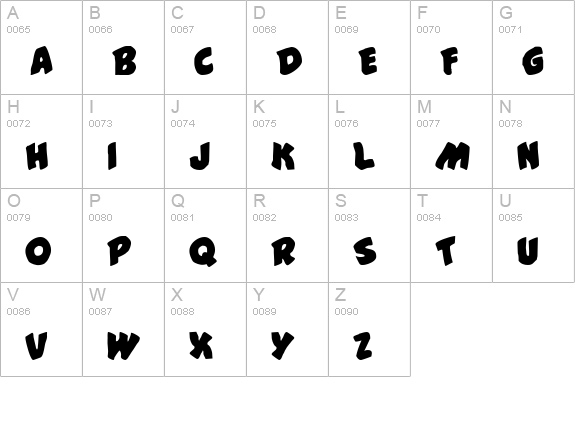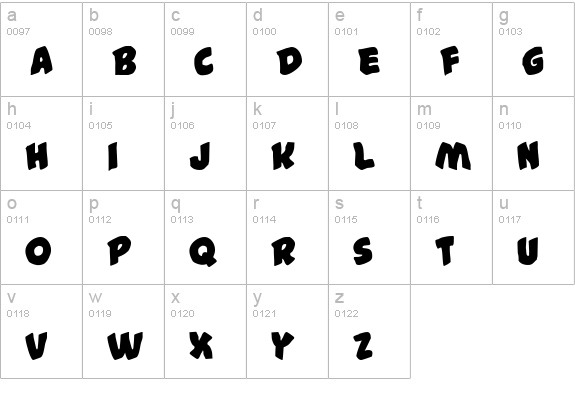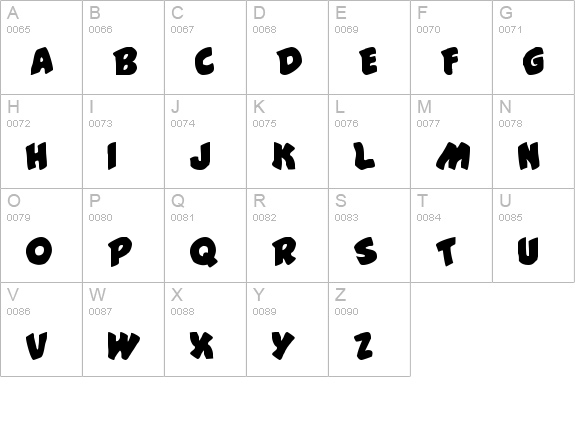
#44 Font Font Details
Introducing the exquisite #44 Font font, a beautiful typeface that exudes elegance and sophistication. This versatile font is perfect for a wide range of design projects, from branding to invitations to signage. With its timeless appeal and unique charm, #44 Font font is sure to make your designs stand out. The best part? #44 Font font is completely free to download at FontsMarket.com! This means you can access this stunning font without any cost, making it a valuable addition to your font collection. Don't miss out on the opportunity to enhance your designs with the captivating beauty of #44 Font font. Download it today and elevate your creative projects to new heights.